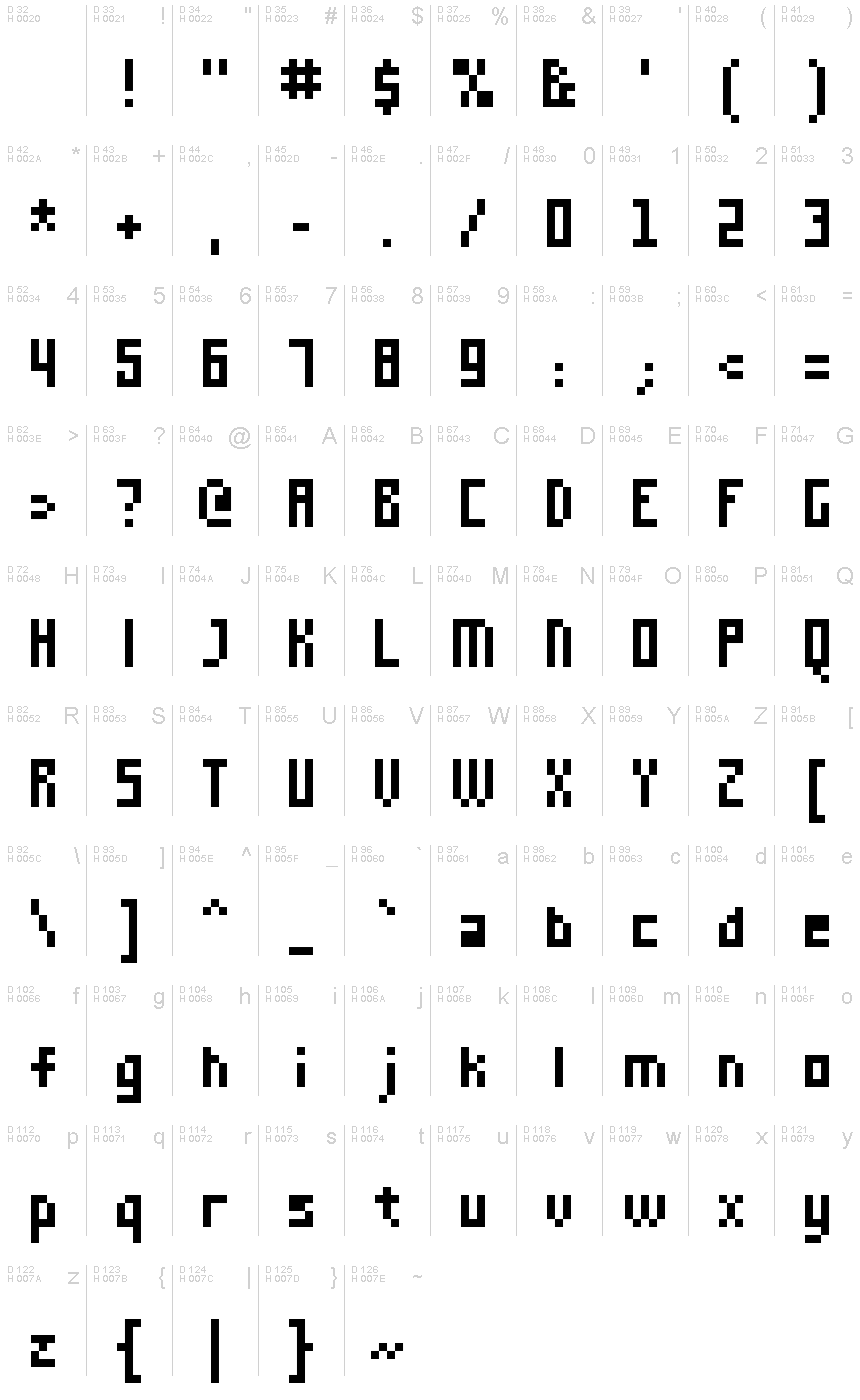
mousetrap
Mousetrap is a striking bitmap font that exudes a retro, pixelated charm. Designed by Jeti, this condensed typeface boasts a distinct visual identity, with sharp edges and a playful, angular aesthetic. The condensed width lends a sense of boldness and impact, making it an excellent choice for headlines, logos, and other high-visibility design elements.
Mousetrap's pixelated style evokes a nostalgic, vintage feel, making it well-suited for retro-inspired projects, such as game interfaces, film titles, or music album covers. Its unique character shapes and impactful presence make it a versatile tool for designers seeking to add a touch of bold, eye-catching personality to their work.
Mousetrap by Jeti: A tiny font that manages to remain legible. Who would have thought?